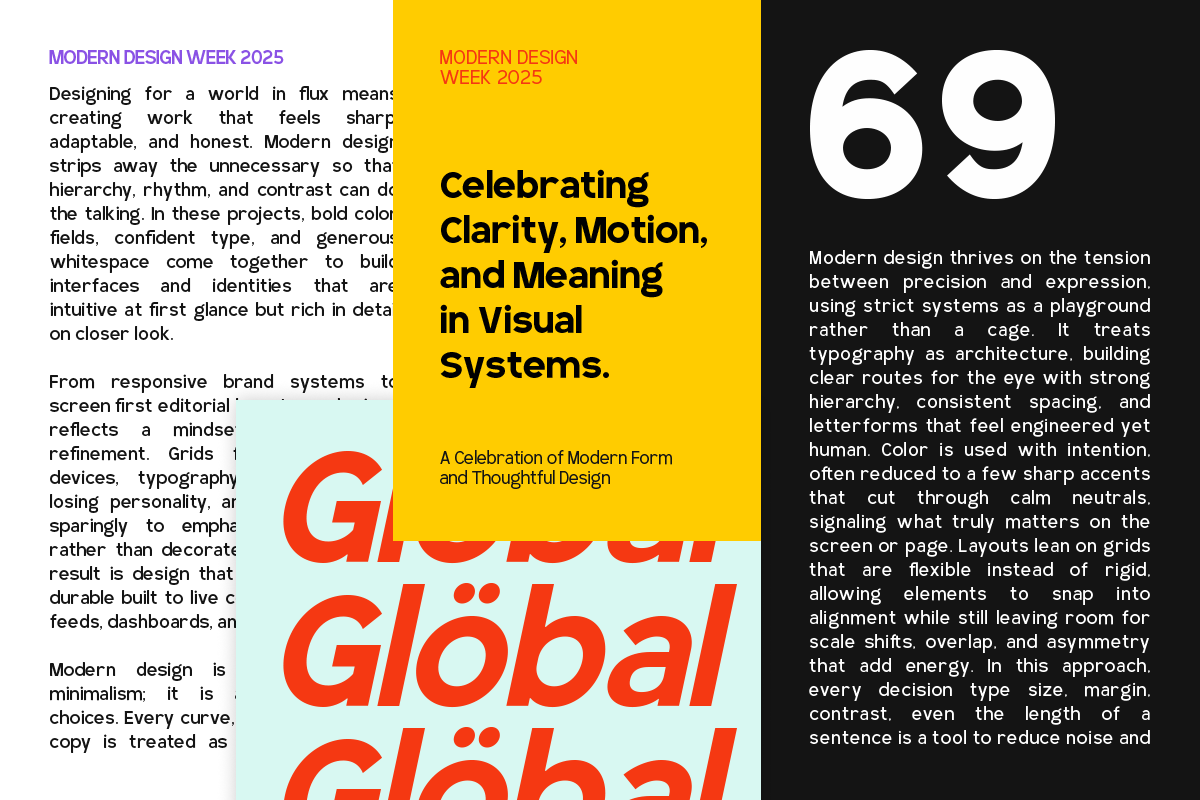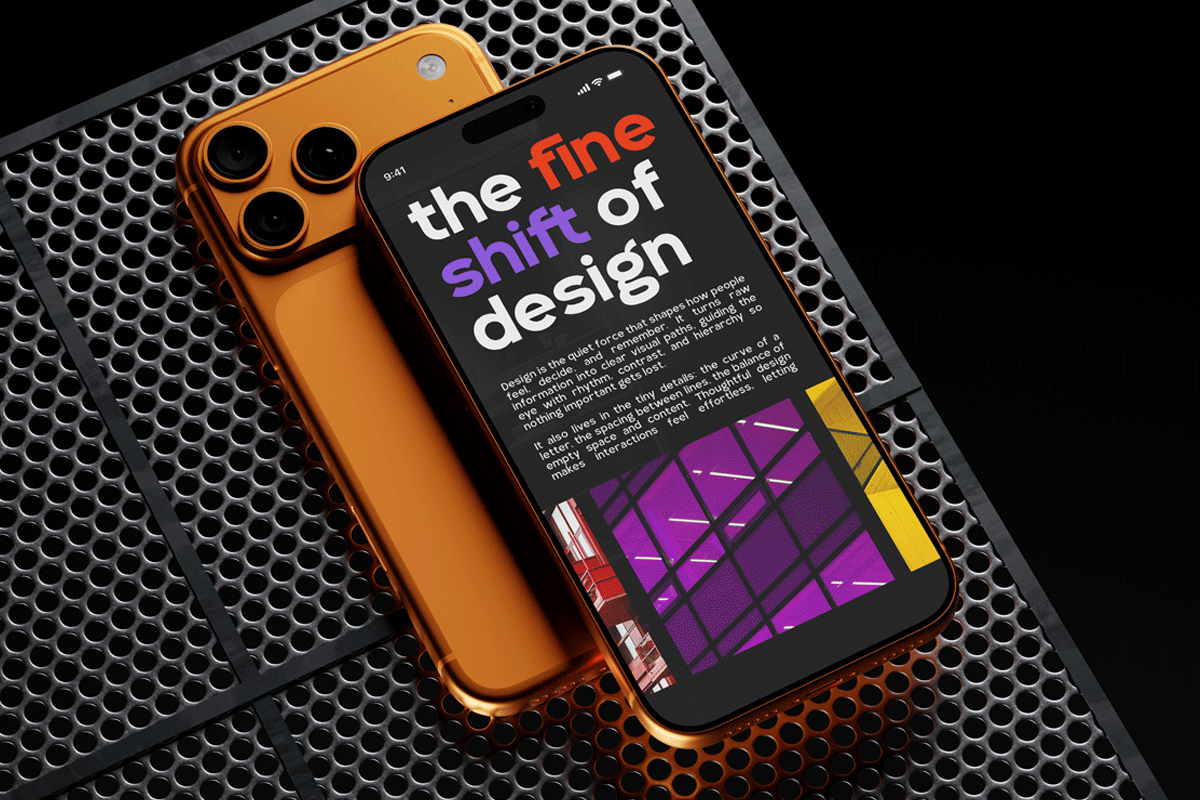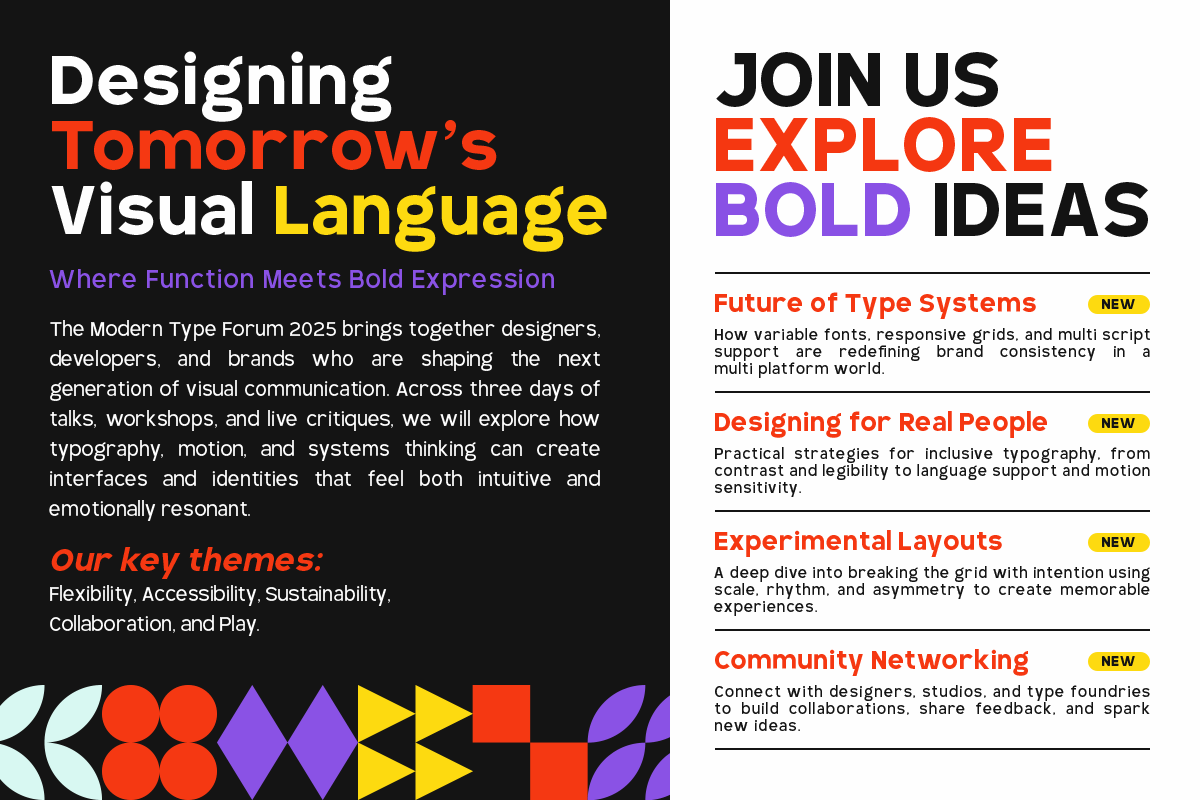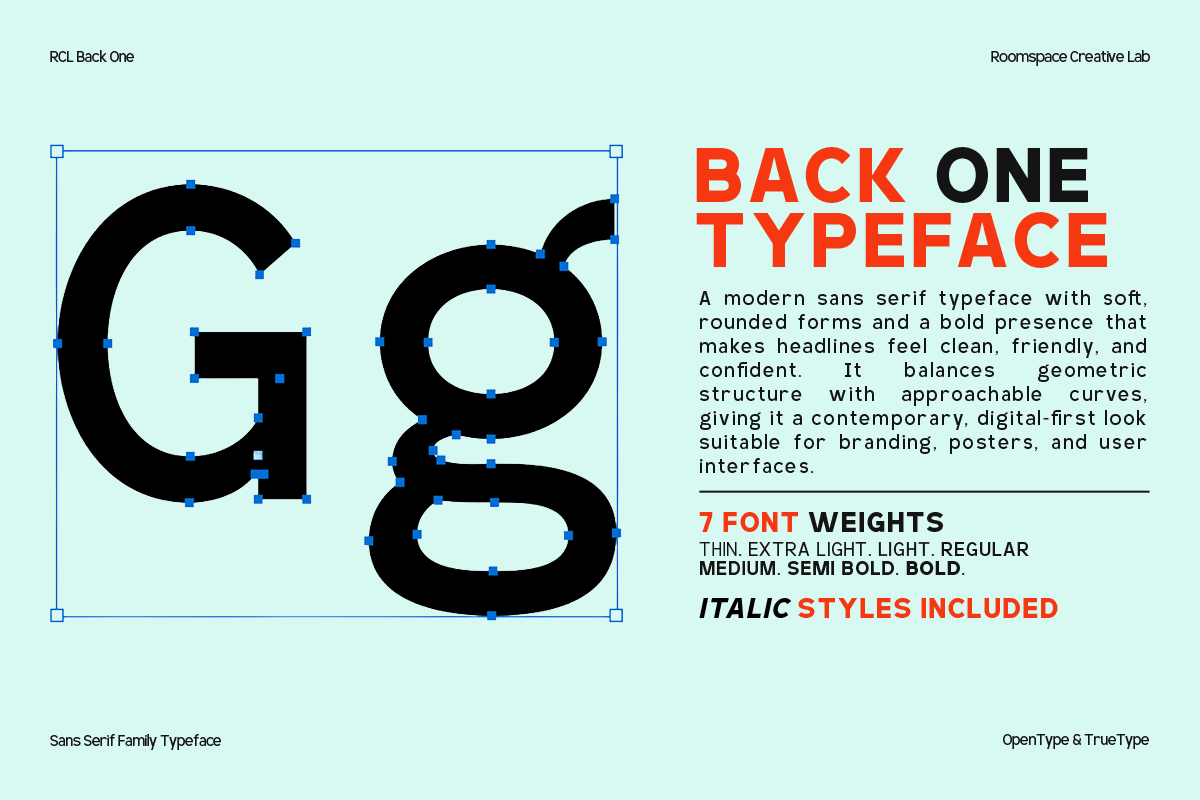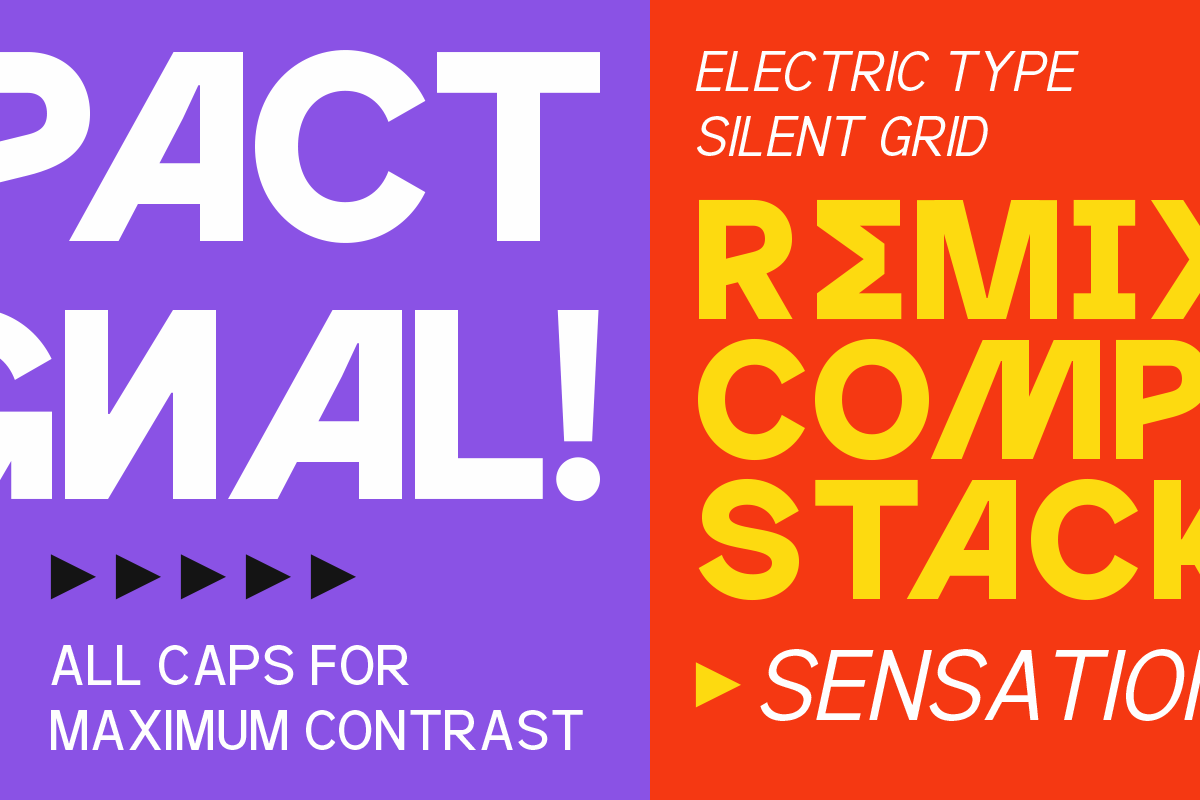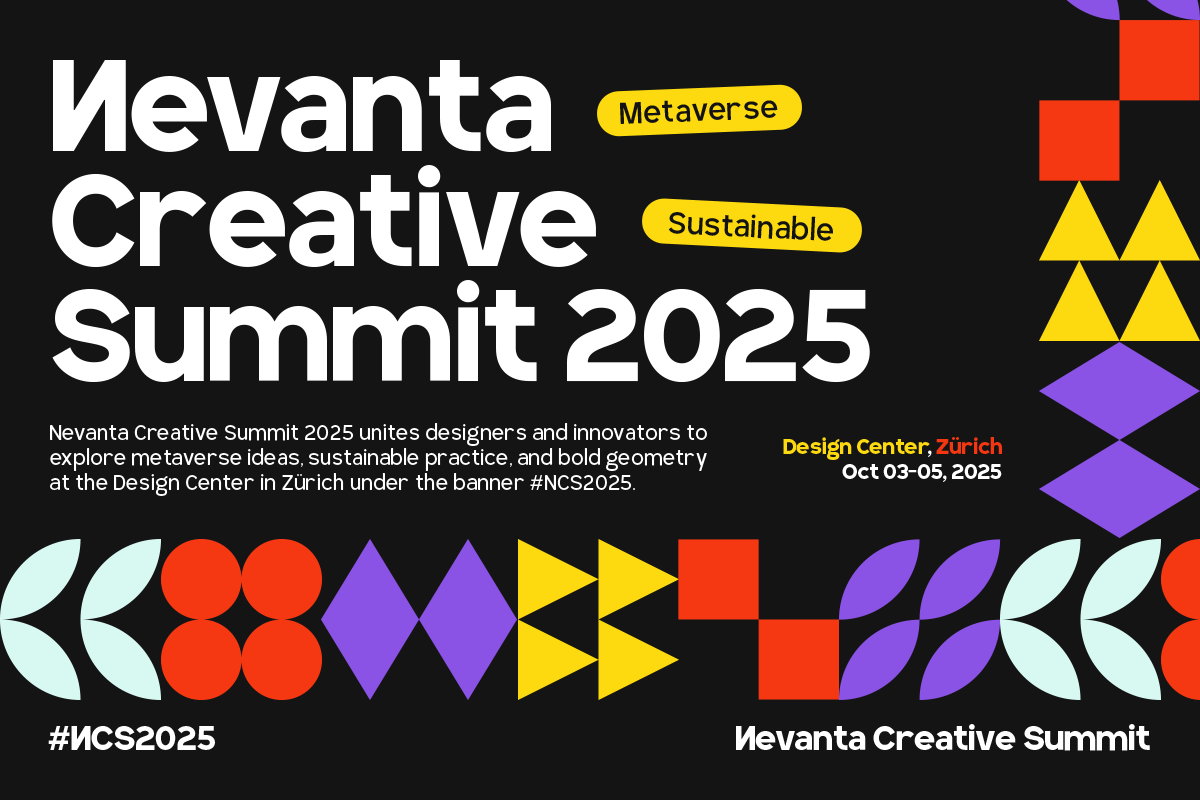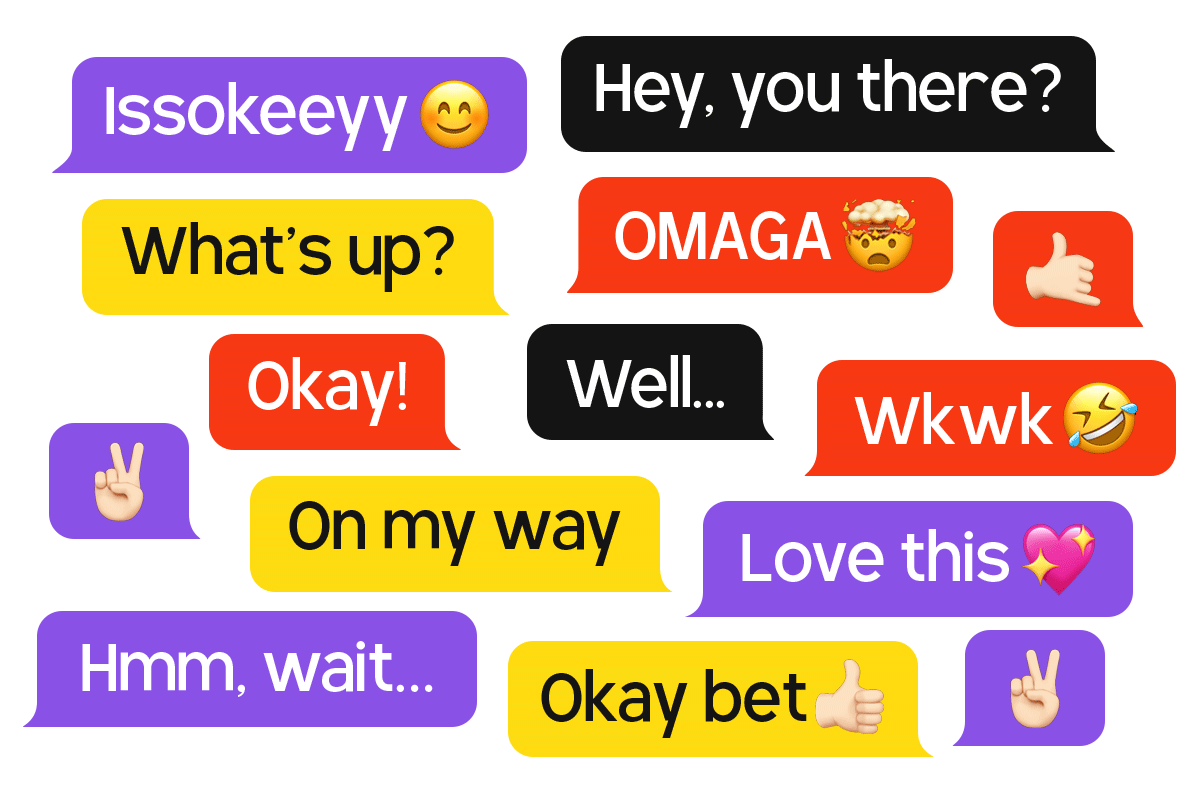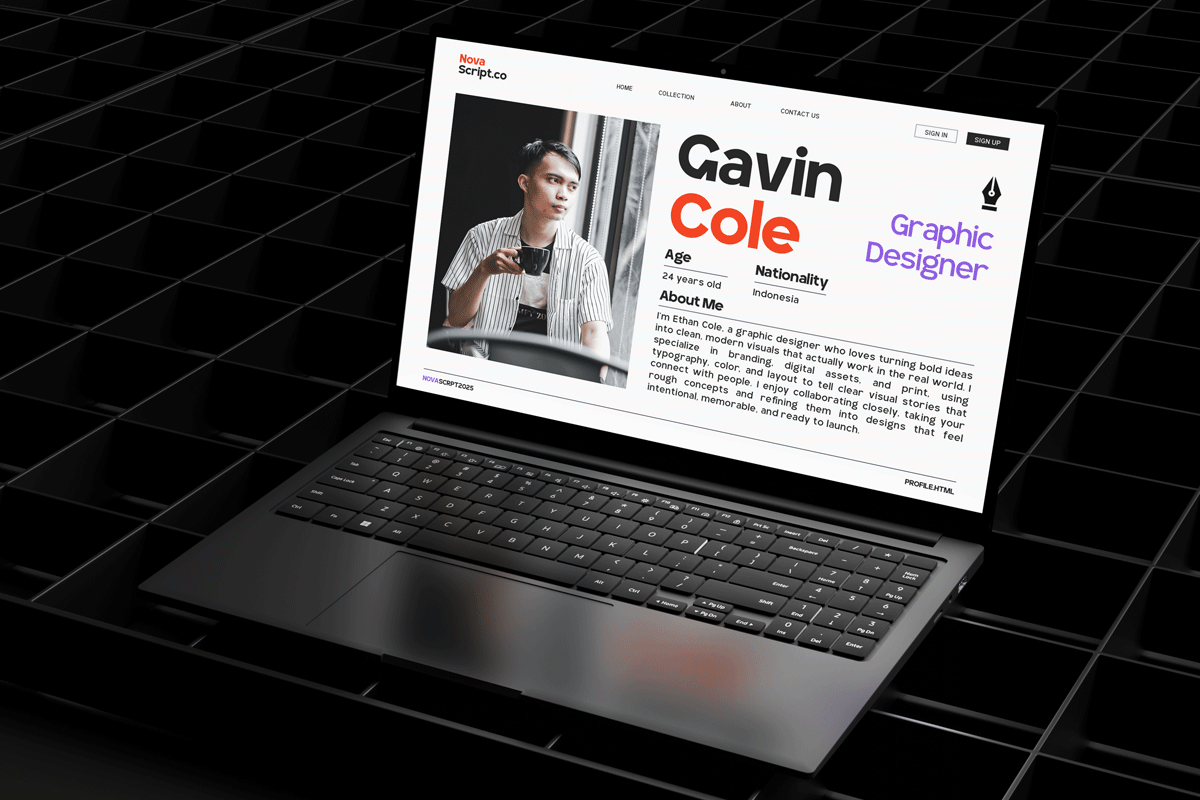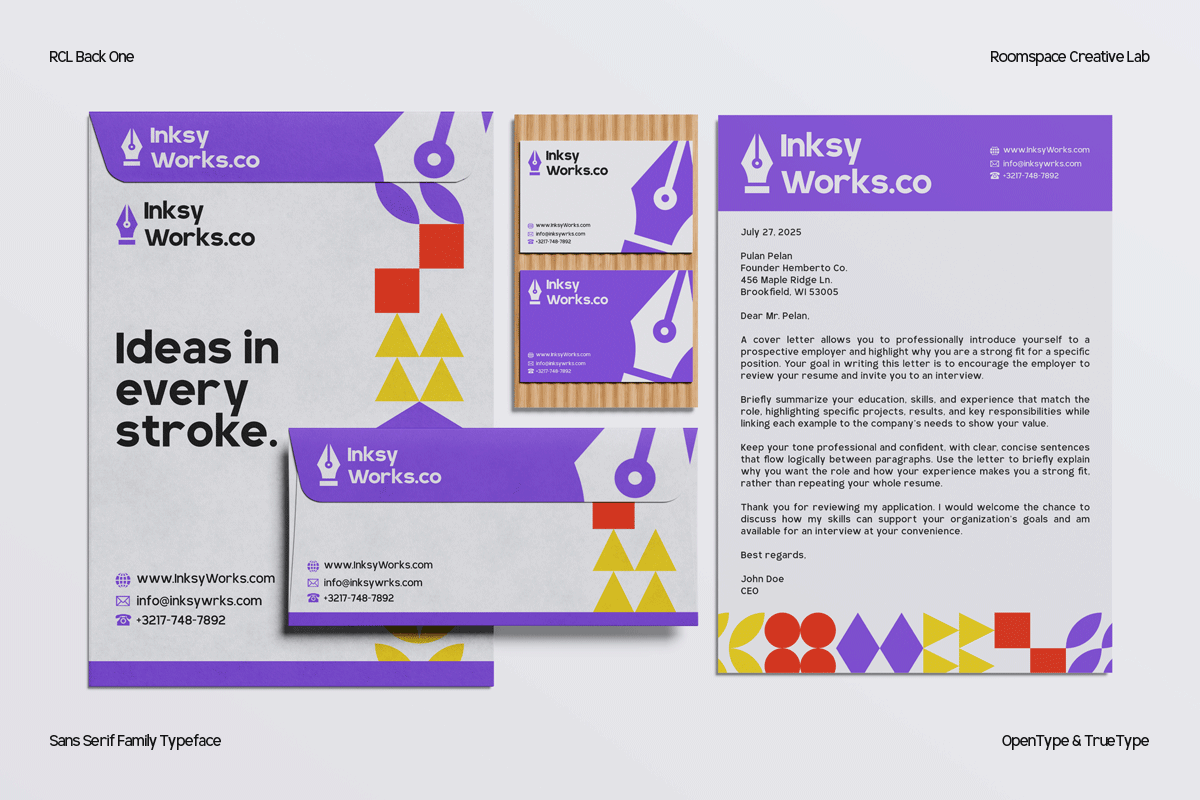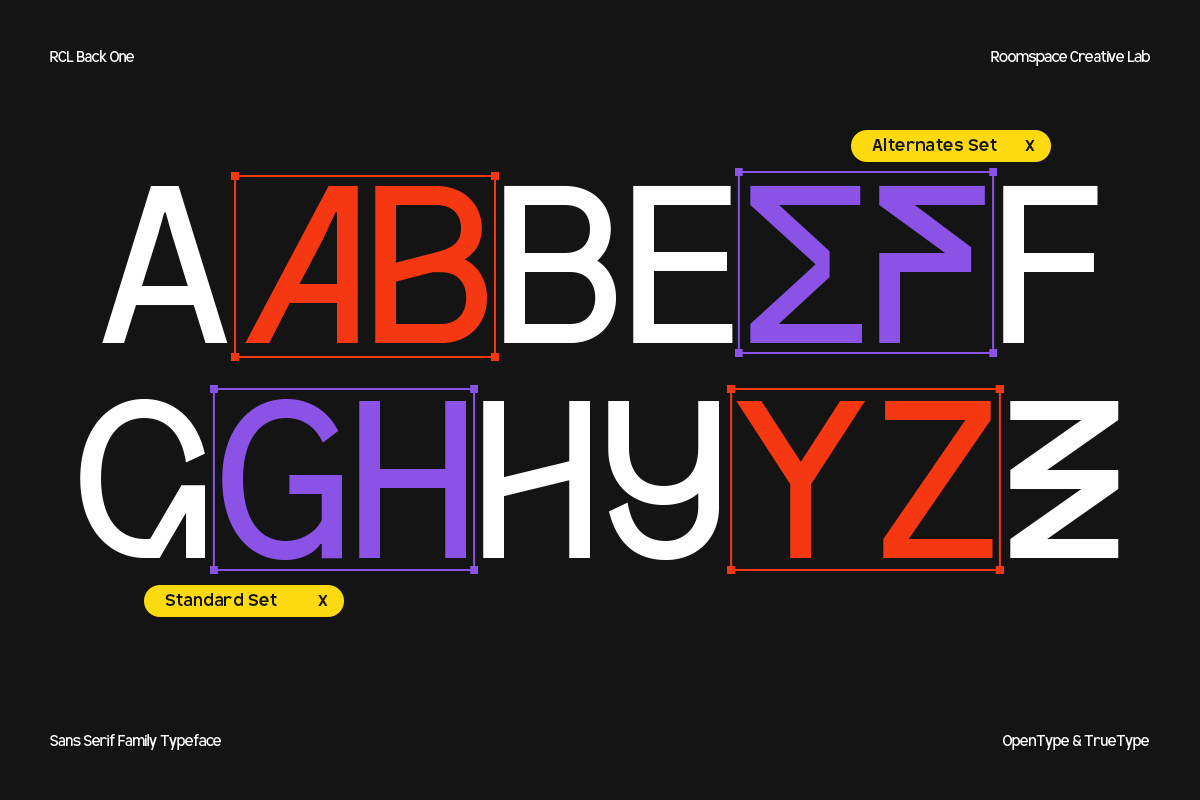
BackOne – A Bold Modern Sans Font
A bold contemporary sans-serif made to power modern branding and digital design.
Back One is a bold modern sans-serif font family created to bring confidence and clarity to your designs. Its wide proportions and clean construction make it perfect for brands that want to stand out while staying professional and approachable. Back One works beautifully across branding systems, websites, mobile apps, editorial layouts, and marketing visuals. Whether you’re building a startup identity or crafting bold headlines, Back One delivers modern strength with effortless readability.
- 7 Weights + Italics
- Modern sans-serif with bold character
Excellent readability for screen & print
Perfect For : Brand identity, web design, UI/UX, packaging, social media, posters, editorials, startups, and corporate branding.